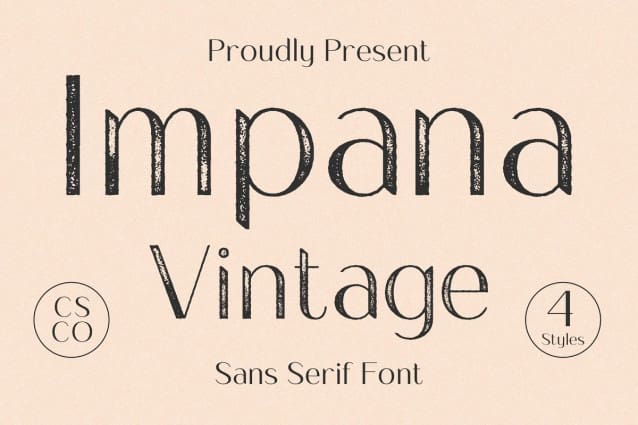
Impana Vintage Font
Impana Vintage Font is a charming sans-serif font that combines the timeless appeal of vintage aesthetics with a contemporary twist. This font effortlessly captures the essence of a stamp-style design while also offering a touch of rough and hand-drawn character.
Timeless Vintage Vibes Impana Vintage Stylish Sans Serif Font evokes a sense of nostalgia with its vintage vibes. The bold, sans-serif letterforms are reminiscent of classic signage and posters, making it perfect for projects that require a touch of retro charm.
Rough and Edgy Appeal What sets Impana Vintage apart is its rough and edgy appeal. The font features slightly distressed edges that add character and uniqueness to your designs. Whether you’re creating invitations, posters, or logos, this font will give your work a distinct personality.
Hand-Drawn Craftsmanship Impana Vintage doesn’t just stop at roughness; it also incorporates a hand-drawn quality. Each letter feels like it was carefully crafted by hand, adding an artisanal touch to your projects. This font is ideal for those who appreciate the authenticity of hand-drawn elements.